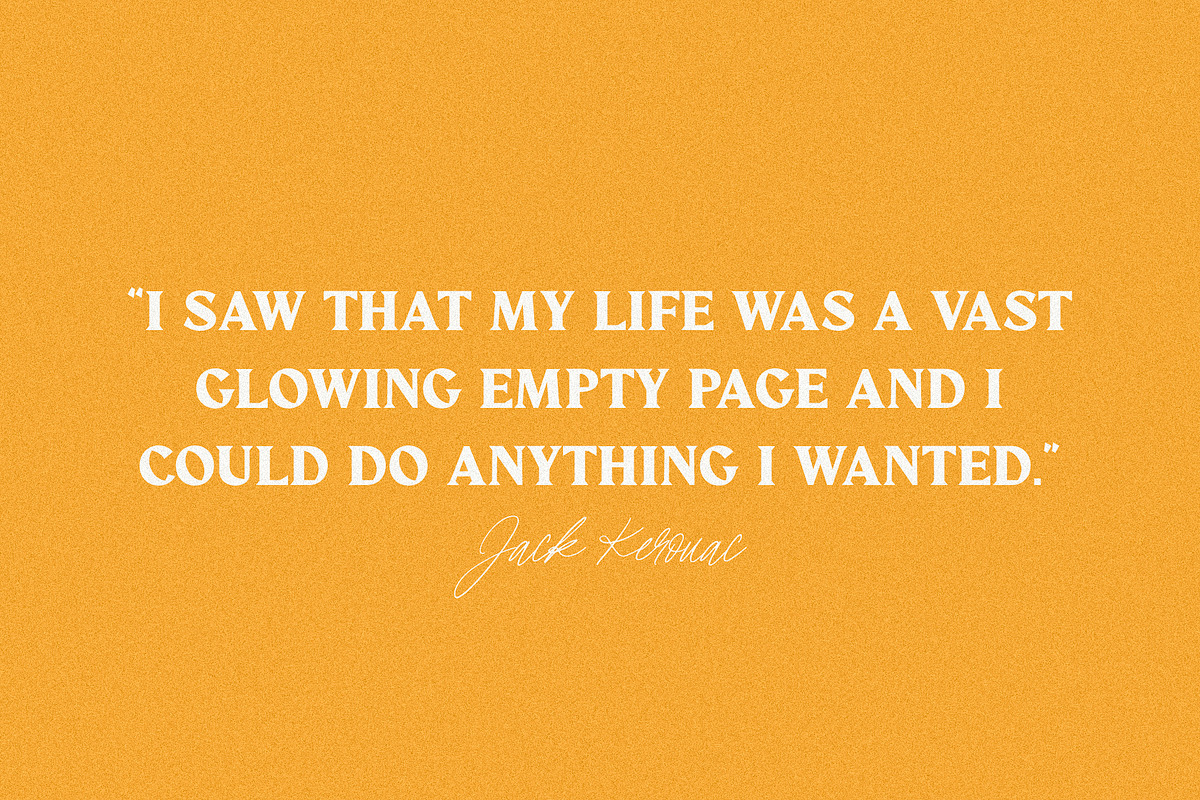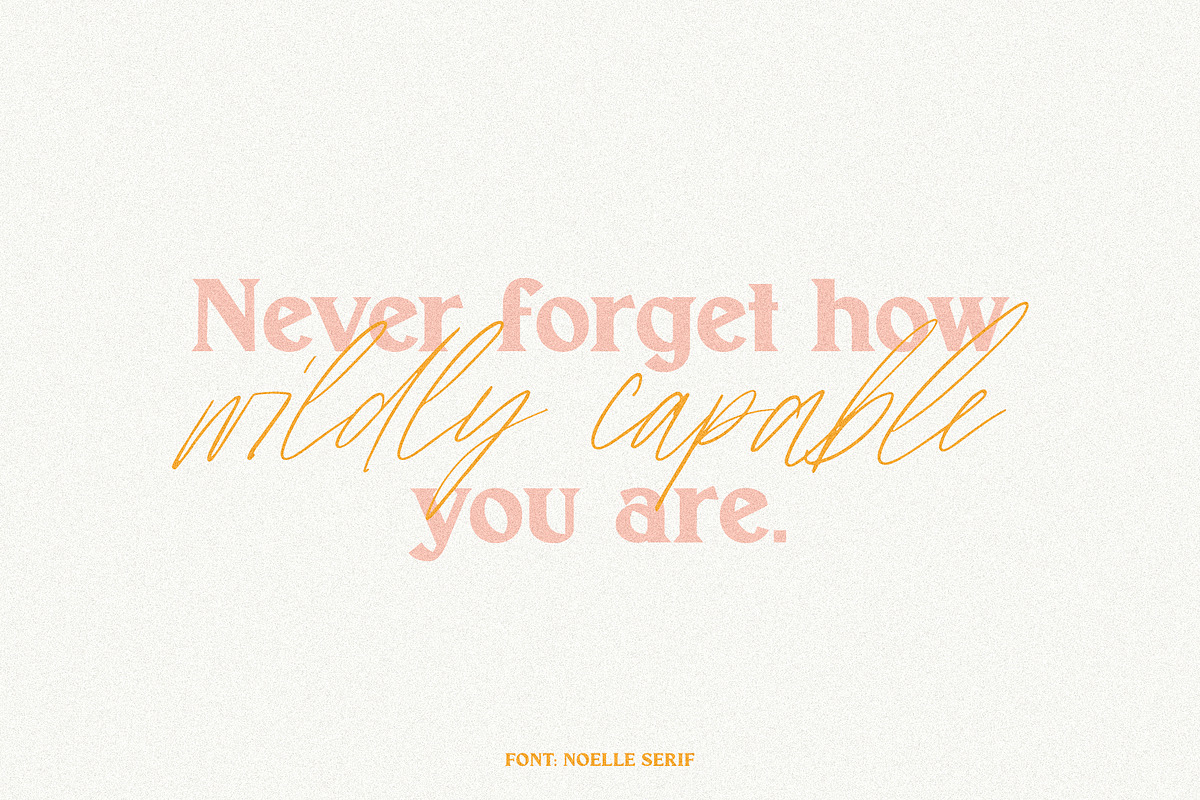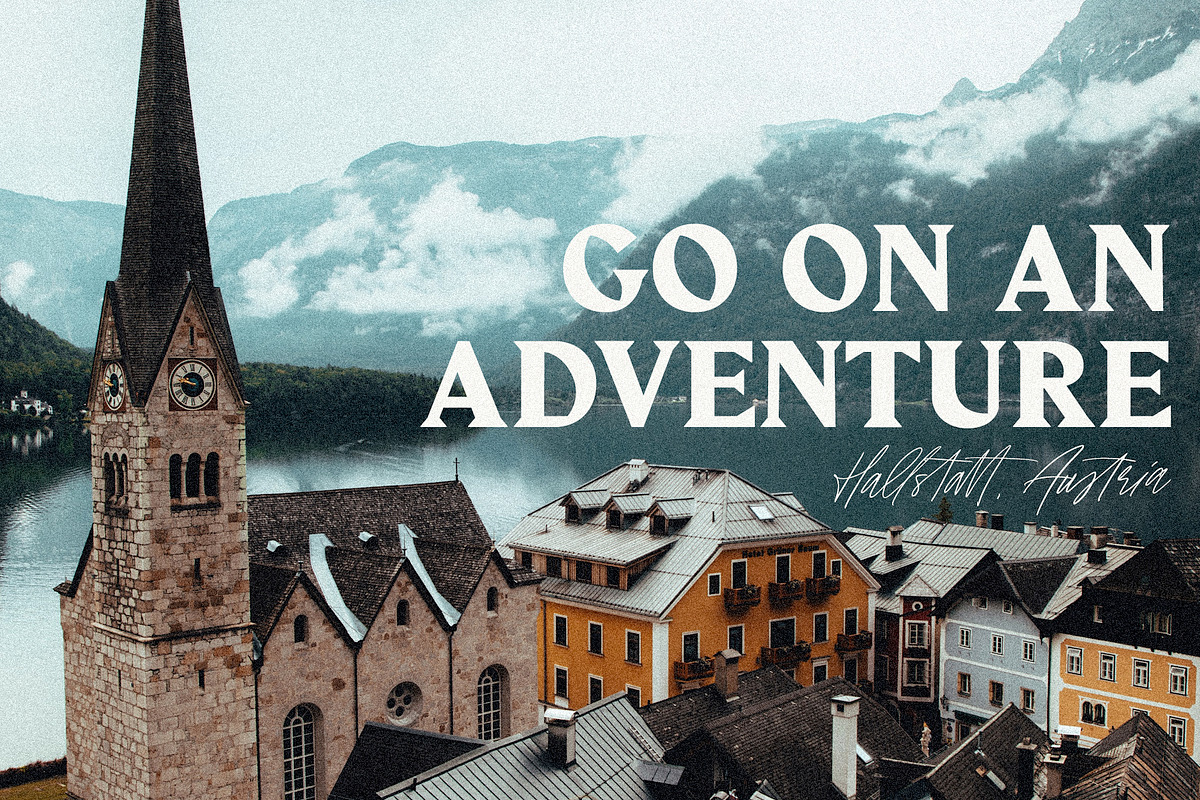
Noelle is a classic, minimalist serif font that functions beautifully in modern design work – geometric, clean lines; modern serifs, and just a touch of vintage.
It looks gorgeous in logo work as well as web headings and printed materials.
- Upper & lowercase letters
- Numbers & punctuation
- Foreign language accents & characters for the international designer